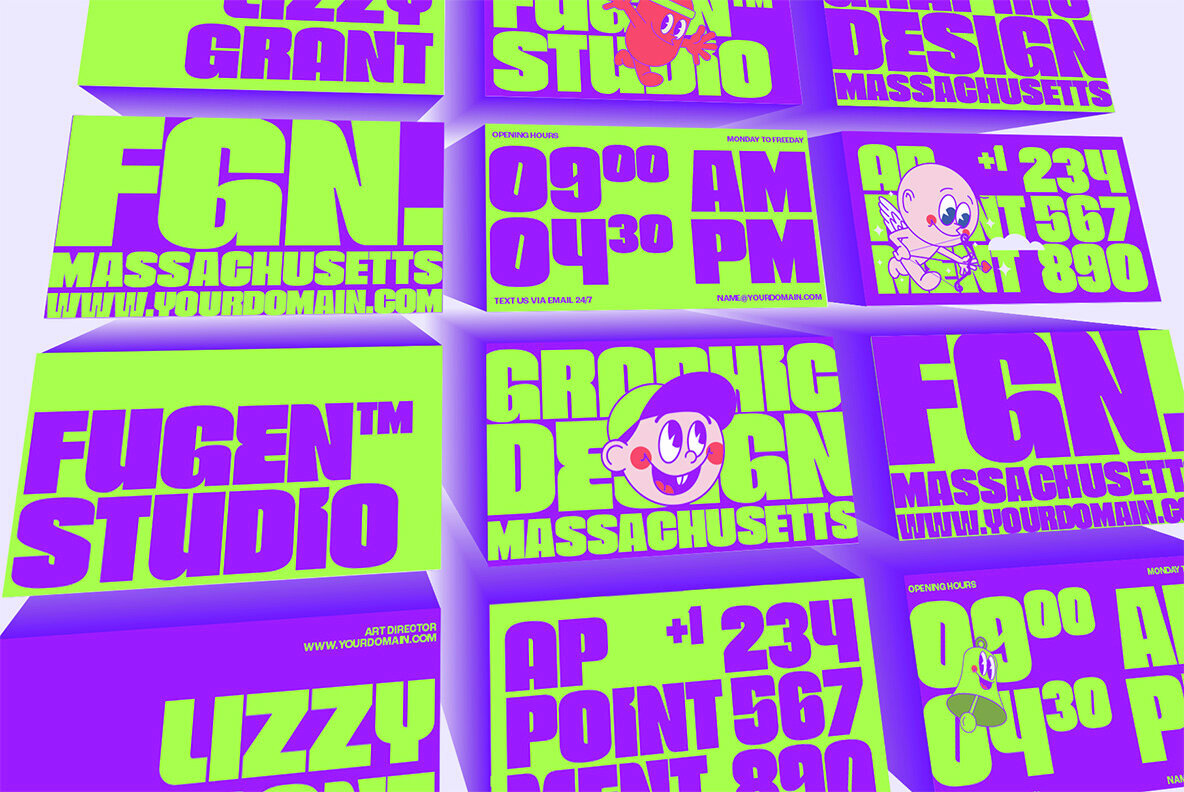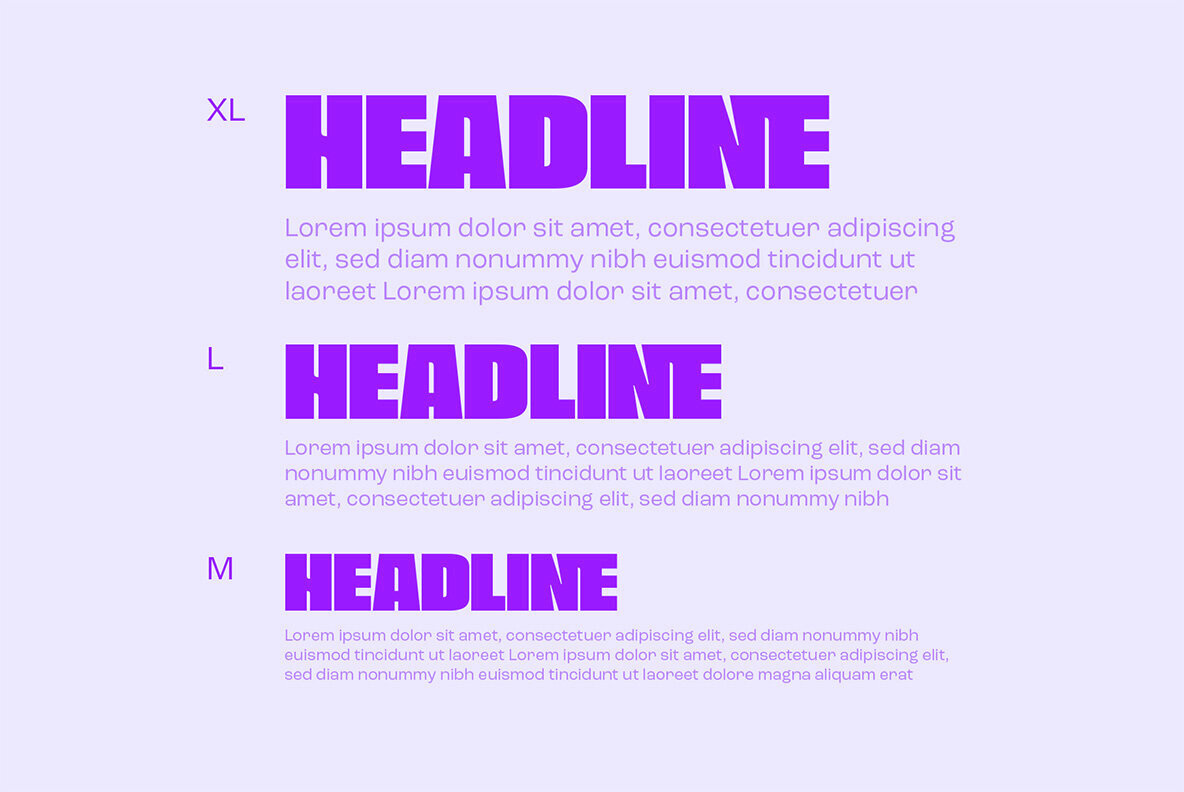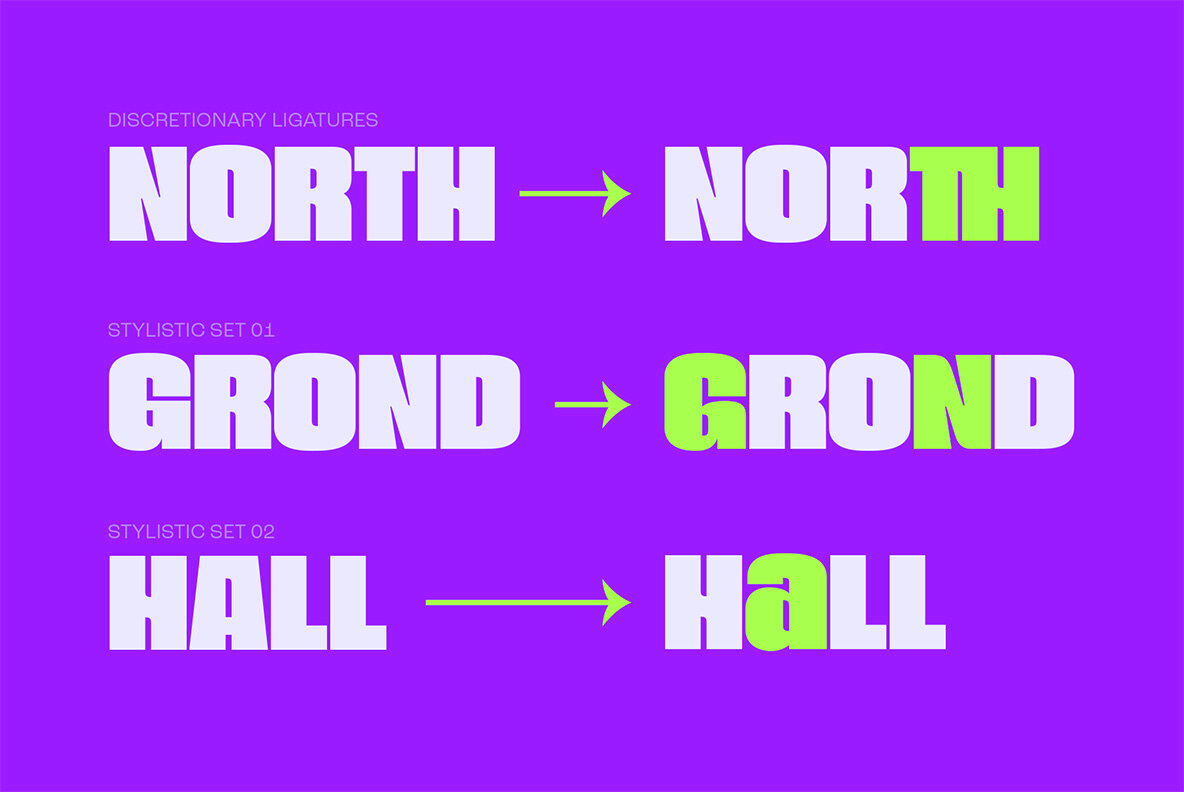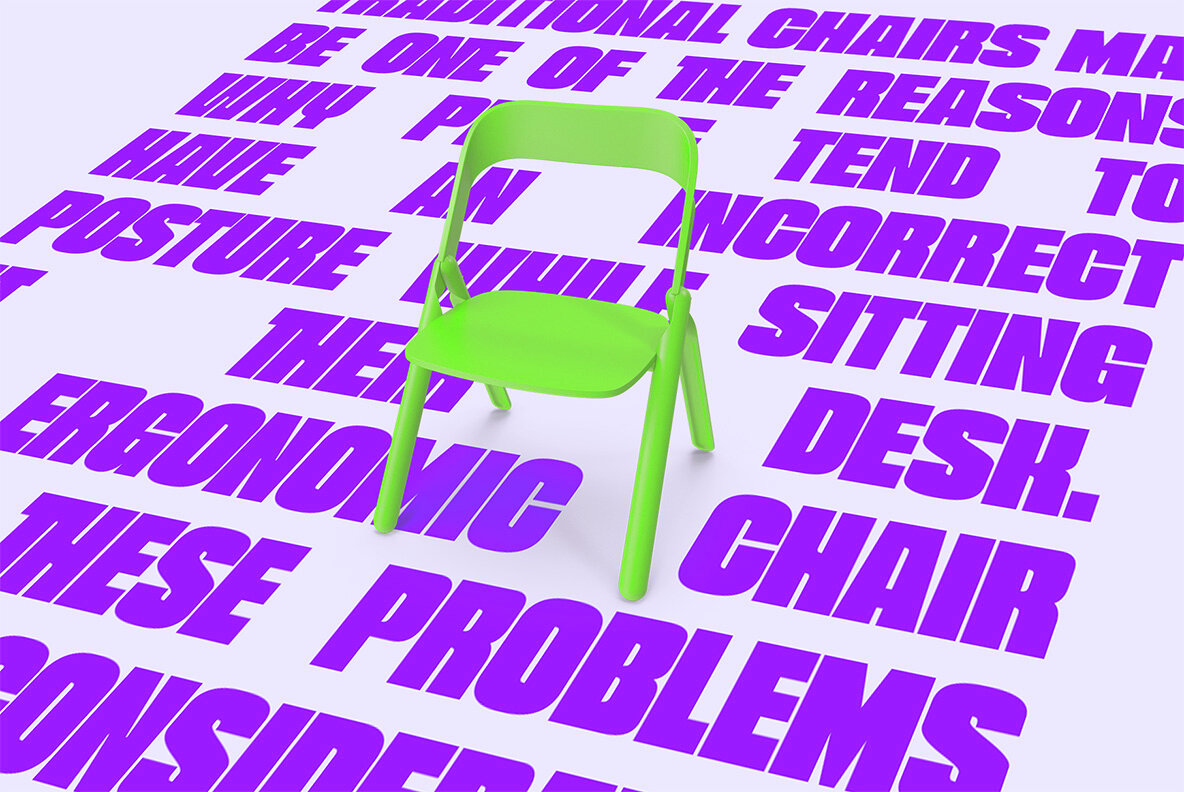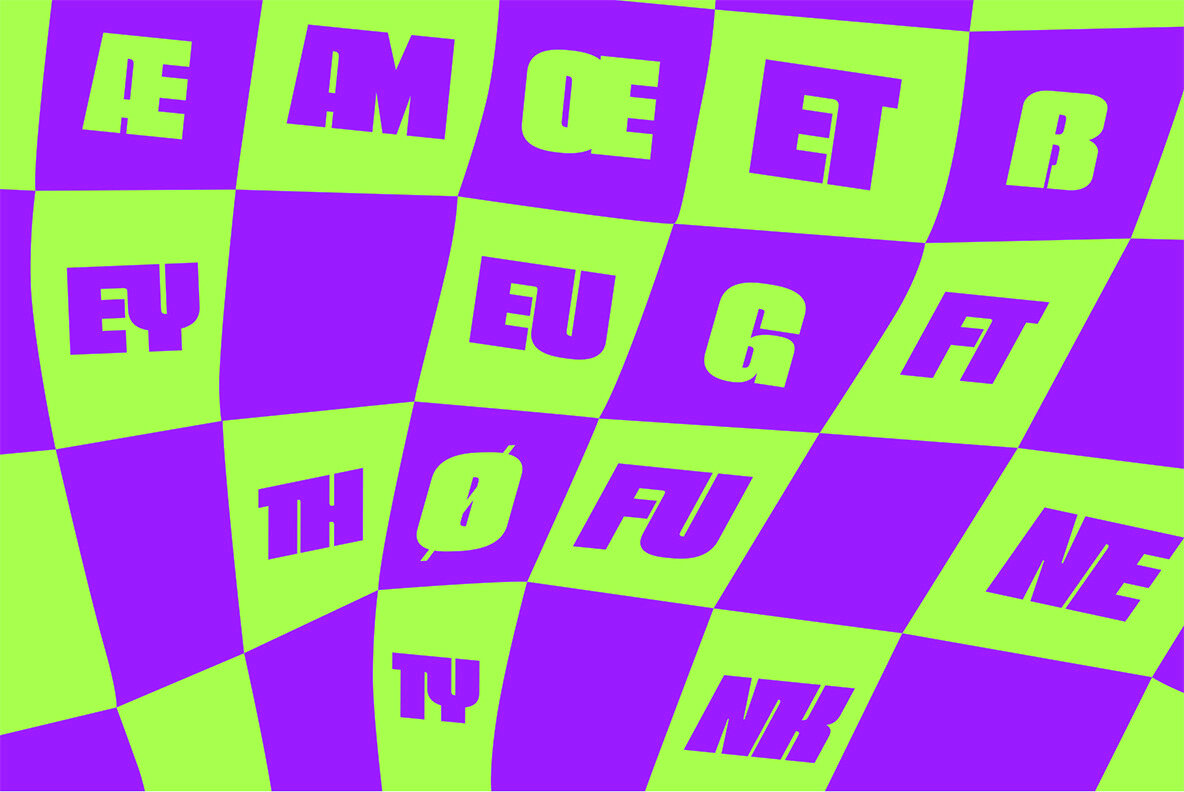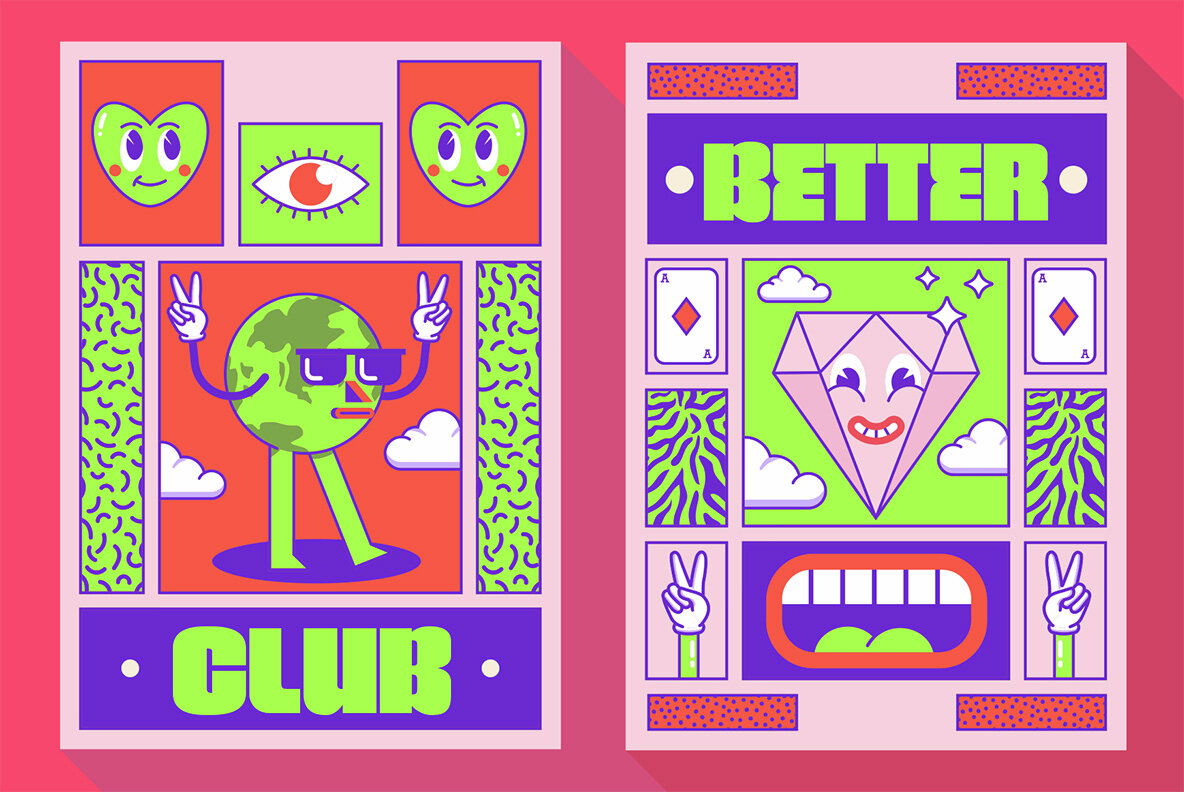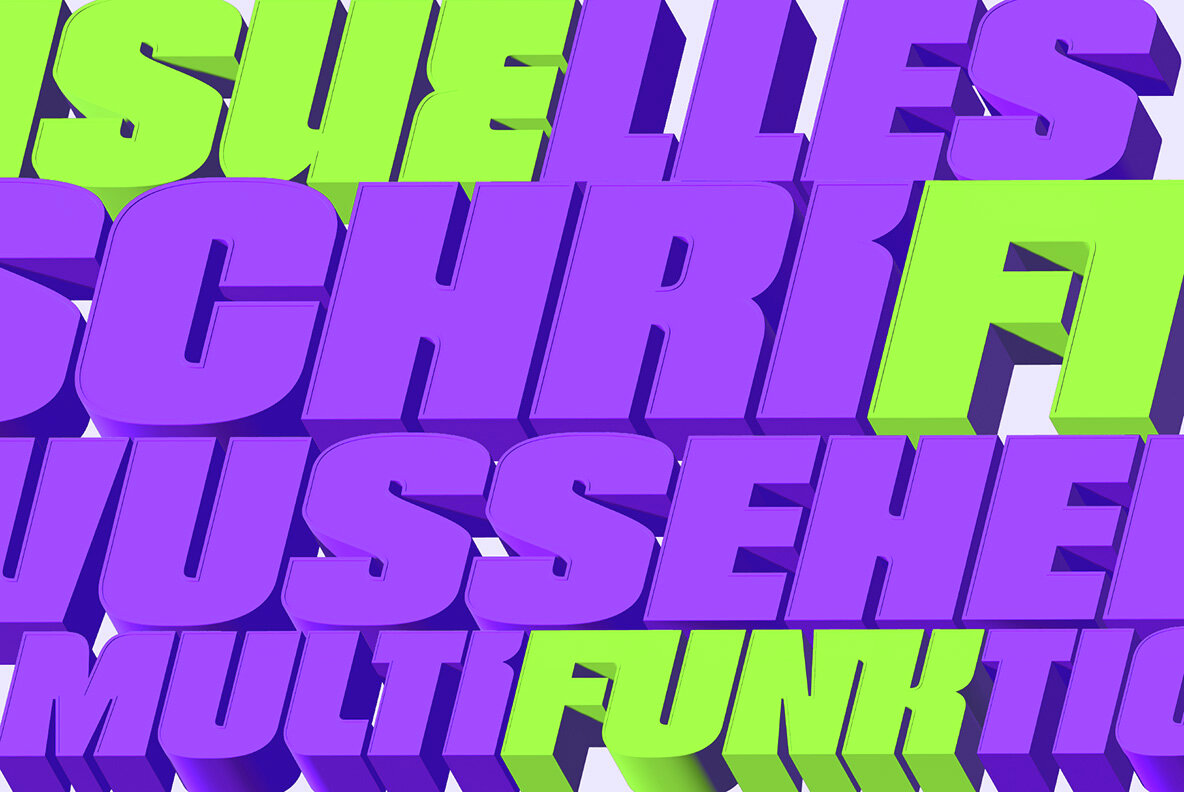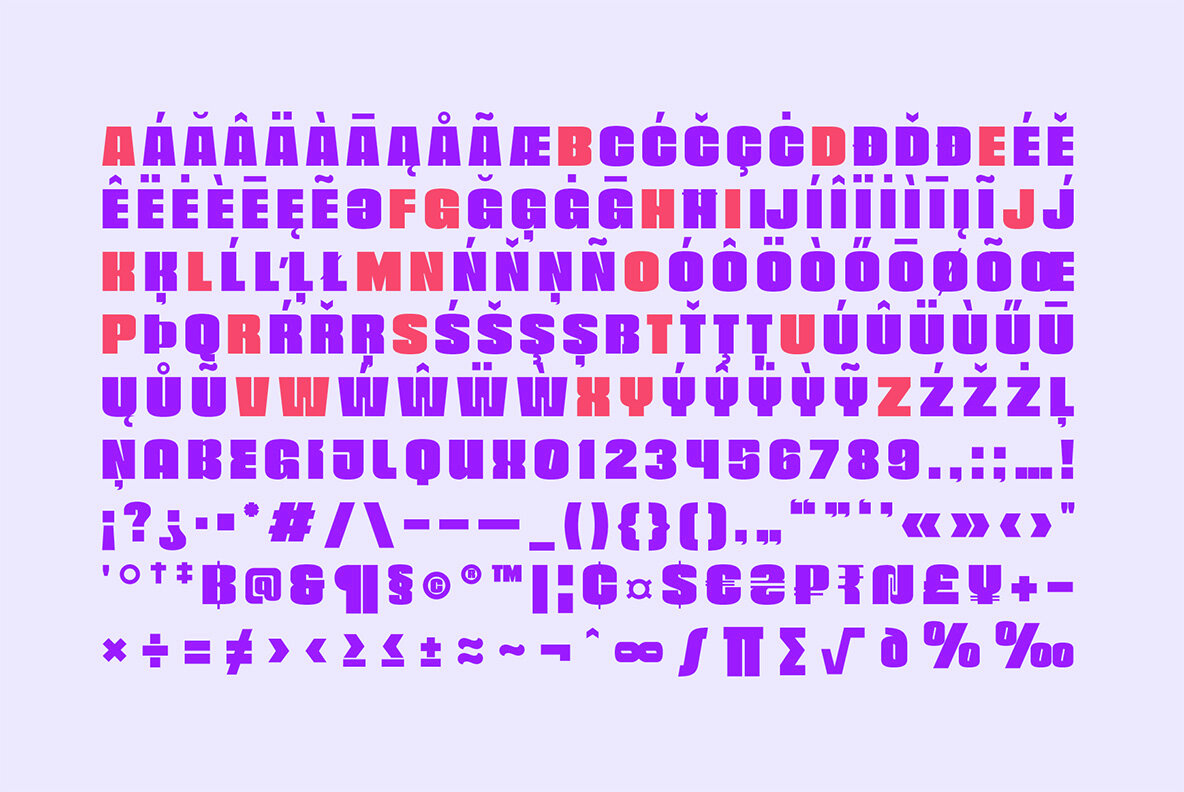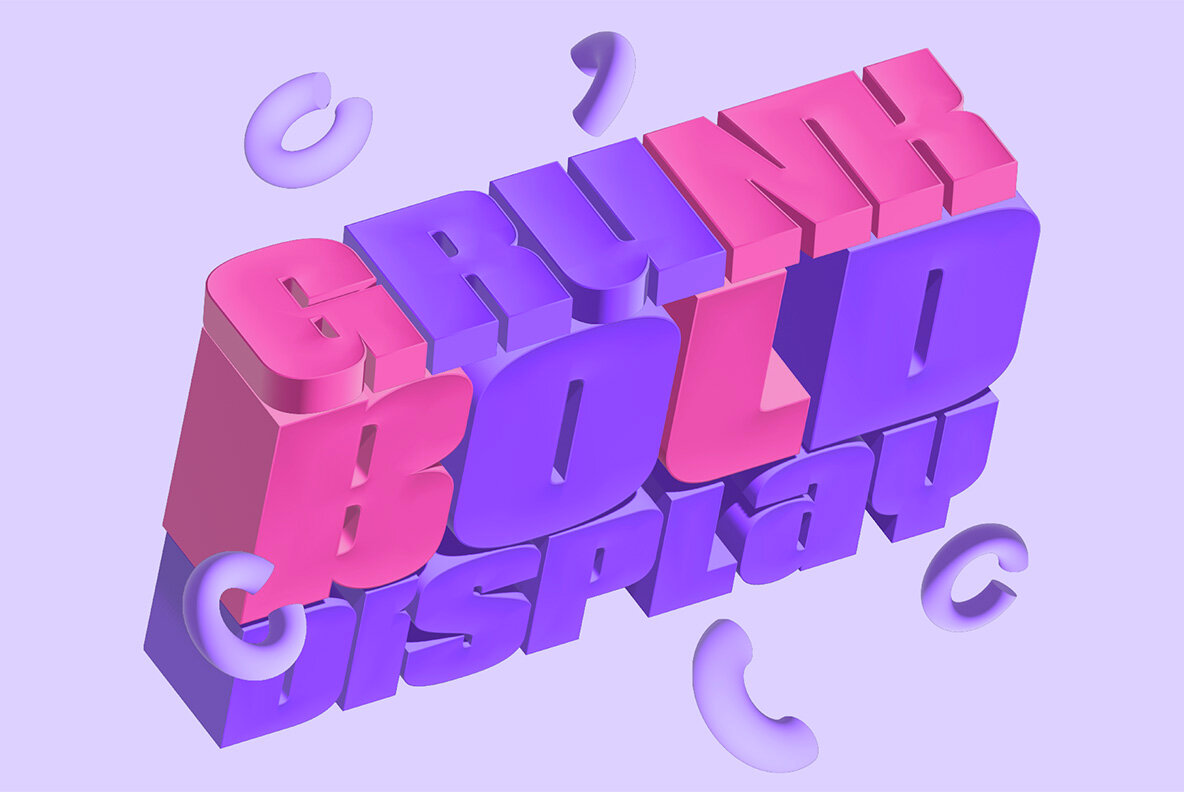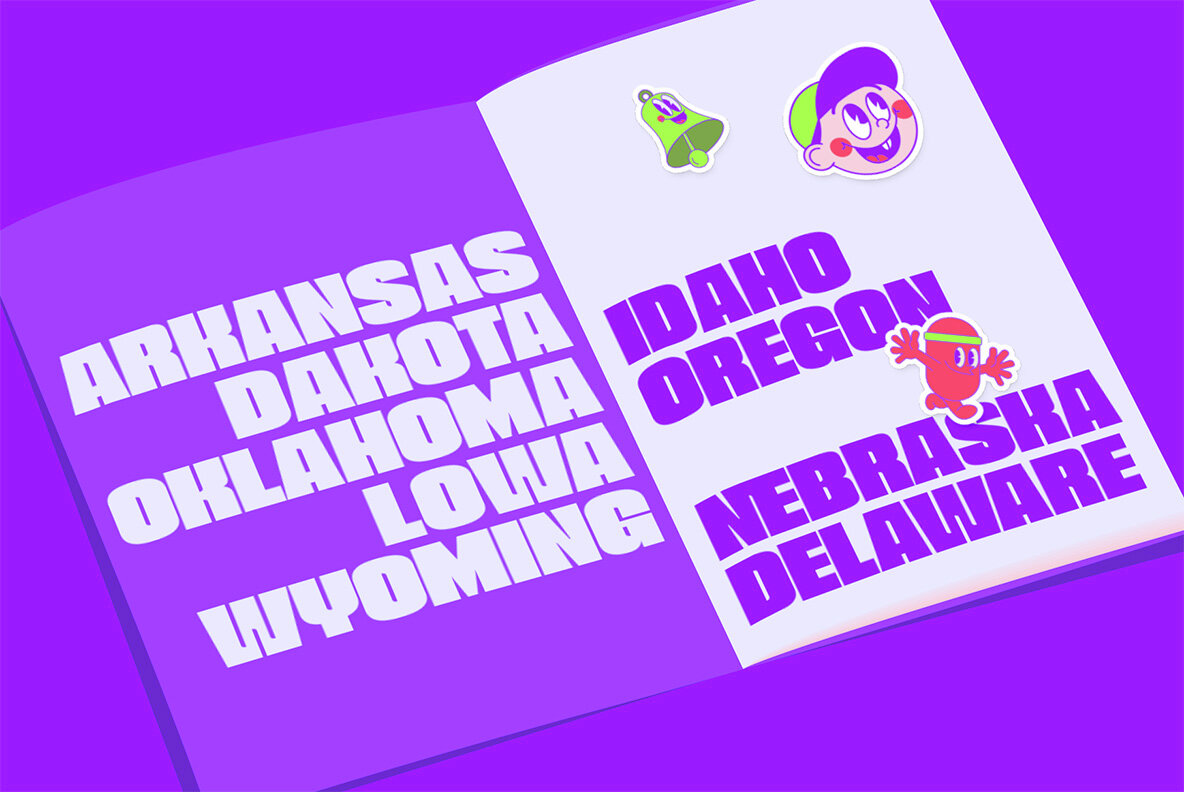
Grunk Font
Grunk Bold
Grunk by Casloop Studio is a vibrant symphony of pop culture and creative expression. This bold display font is not merely a typeface; it's a celebration of artistic freedom. As a sans-serif chunky typeface, Grunk stands out with its retro cartoon flair and groovy typography. Its chunky letters exude a playful yet sophisticated vibe, marking it as a distinctive design virtuoso. Grunk captivates with its gorgeous and eccentric style. Designed for versatility, it takes center stage in website designs, packaging, logos, branding, album covers, 3D projects, stickers, emblems, logotypes, music bands, and posters. These unique and whimsically cool fonts redefine design norms, promising satisfaction and a lasting impact. Technically, Grunk offers two main features: an alternate character that is both boxy and groovy, and experimental ligatures precise as standard characters. Additionally, it includes multilingual characters, especially extended Latin characters, supporting nearly 100 languages.Grunk: A Bold Melody of Colorful Typography